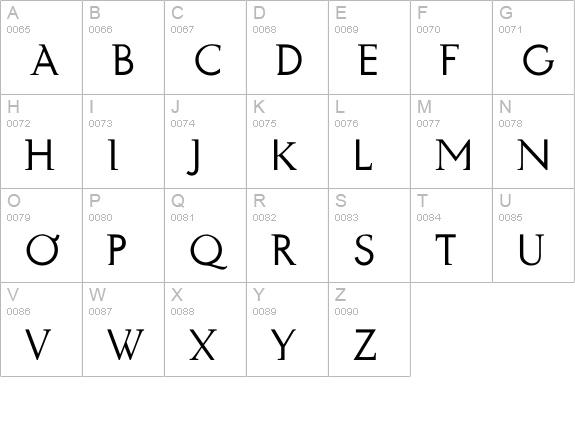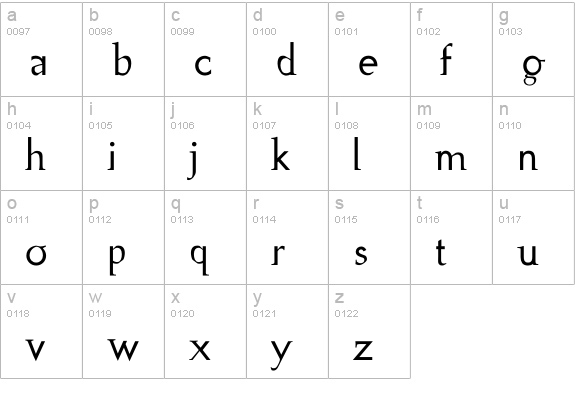
Kennedy Font Details
Introducing Kennedy font - a beautifully balanced typeface that exudes elegance and sophistication. Its graceful curves and clean lines make it a versatile choice for a wide range of design projects. Whether you're creating a logo, designing a website, or crafting a printed piece, Kennedy font will add a touch of timeless class. With its sleek and modern aesthetic, Kennedy font effortlessly captures attention and leaves a lasting impression. Its carefully crafted details and impeccable readability make it a perfect choice for both headlines and body text. The subtle variations in stroke weight create a harmonious rhythm, enhancing legibility and ensuring a smooth reading experience. What makes Kennedy font even more remarkable is the fact that it is available for free. That's right - you can download this exceptional typeface at no cost from FontsMarket.com. This generous offer allows designers, creatives, and enthusiasts alike to access a high-quality font without breaking the bank. The versatility of Kennedy font knows no bounds. Whether you're designing for print or web, its extensive character set ensures compatibility with various languages and typographic needs. Its OpenType features, such as ligatures and alternate characters, provide additional flexibility and creative possibilities. Kennedy font is a typeface that embodies the perfect balance of classic and contemporary design elements. Its timeless appeal and freely available download make it an invaluable addition to any designer's toolkit. So why wait? Head over to FontsMarket.com and discover the elegance and sophistication of Kennedy font today.